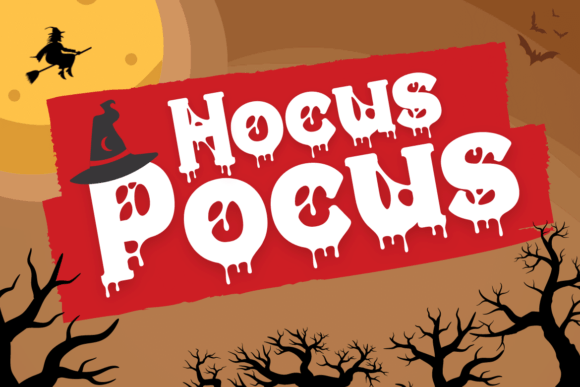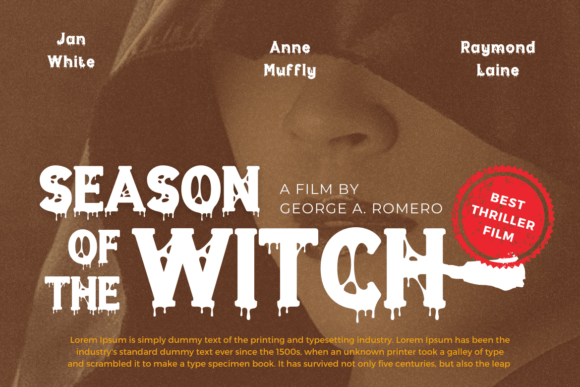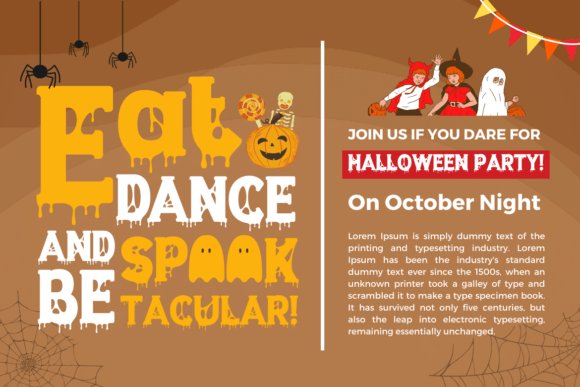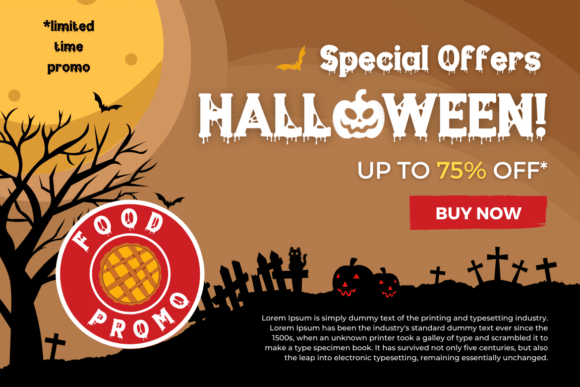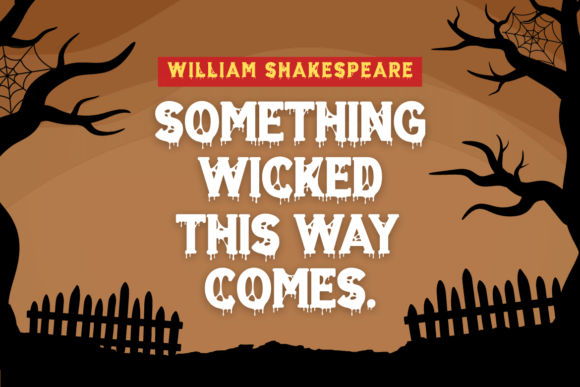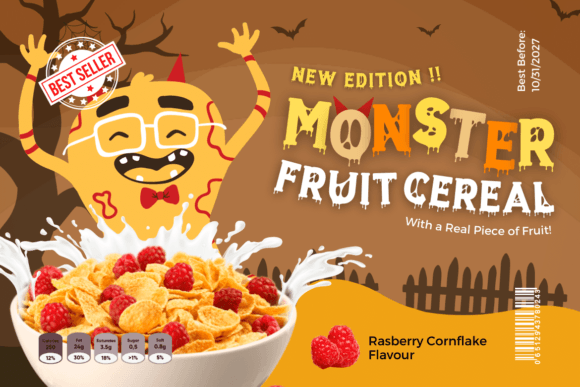
Getih West Font: The Spooky yet Versatile Typeface for Designers
Getih West is a unique and captivating font that may have been initially designed with Halloween in mind, but its uses extend far beyond the spookiest of seasons. This versatile typeface can add a touch of edginess and excitement to a wide range of design projects, from snowboarding gear and product logos to party invitations and more. In this article, we’ll dive into the world of Getih West and explore its features, uses, and benefits for designers and crafters.
A Font that’s Anything but Scary
At first glance, Getih West may seem like a font that’s only suitable for Halloween-themed designs. However, its bold and playful style makes it an excellent choice for a variety of projects that require a bit of attitude and personality. Whether you’re looking to create a logo for a new product, design a flyer for a music festival, or craft a fun invitation for a birthday party, Getih West is a font that can help you make a statement.
Key Features of Getih West Font
So, what makes Getih West such a unique and versatile font? Here are some of its key features:
- Bold and Playful Style: Getih West has a bold and playful style that’s perfect for making a statement. Its chunky letters and irregular shapes give it a fun and edgy vibe that’s hard to ignore.
- Halloween-inspired yet Versatile: While Getih West may have been designed with Halloween in mind, its uses extend far beyond the spookiest of seasons. You can use it to create designs for any occasion or project that requires a bit of personality.
- Easy to Read: Despite its bold and playful style, Getih West is surprisingly easy to read. This makes it an excellent choice for designs that require a clear and concise message.
Uses for Getih West Font
So, what can you use Getih West for? The possibilities are endless, but here are some ideas to get you started:
- Snowboarding Gear and Apparel: Getih West is a perfect fit for snowboarding gear and apparel. Its bold and playful style matches the edgy and adventurous vibe of the sport.
- Product Logos: If you’re launching a new product, Getih West can help you create a logo that stands out from the crowd. Its unique style and bold letters make it an excellent choice for product branding.
- Party Invitations: Who says party invitations have to be boring? Use Getih West to create a fun and spooky invitation that will get your guests excited for the big night.
- Social Media Graphics: Getih West can also be used to create eye-catching social media graphics. Use it to create bold and playful posts that will grab the attention of your followers.
Tips for Using Getih West Font
Here are some tips for using Getih West effectively in your designs:
- Experiment with Colors: Getih West looks great in bold and bright colors. Experiment with different color combinations to find the perfect fit for your design.
- Pair it with Other Fonts: Getih West can be paired with other fonts to create a unique and interesting contrast. Try pairing it with a clean and simple font for a bold and playful effect.
- Use it for Headlines: Getih West is perfect for headlines and titles. Use it to create bold and eye-catching headlines that will grab the attention of your audience.
Getih West is a versatile and captivating font that’s perfect for designers and crafters who want to add a bit of personality to their designs. Its bold and playful style makes it an excellent choice for a wide range of projects, from snowboarding gear and product logos to party invitations and social media graphics. With its ease of use and endless possibilities, Getih West is a font that’s sure to become a favorite in your design arsenal.